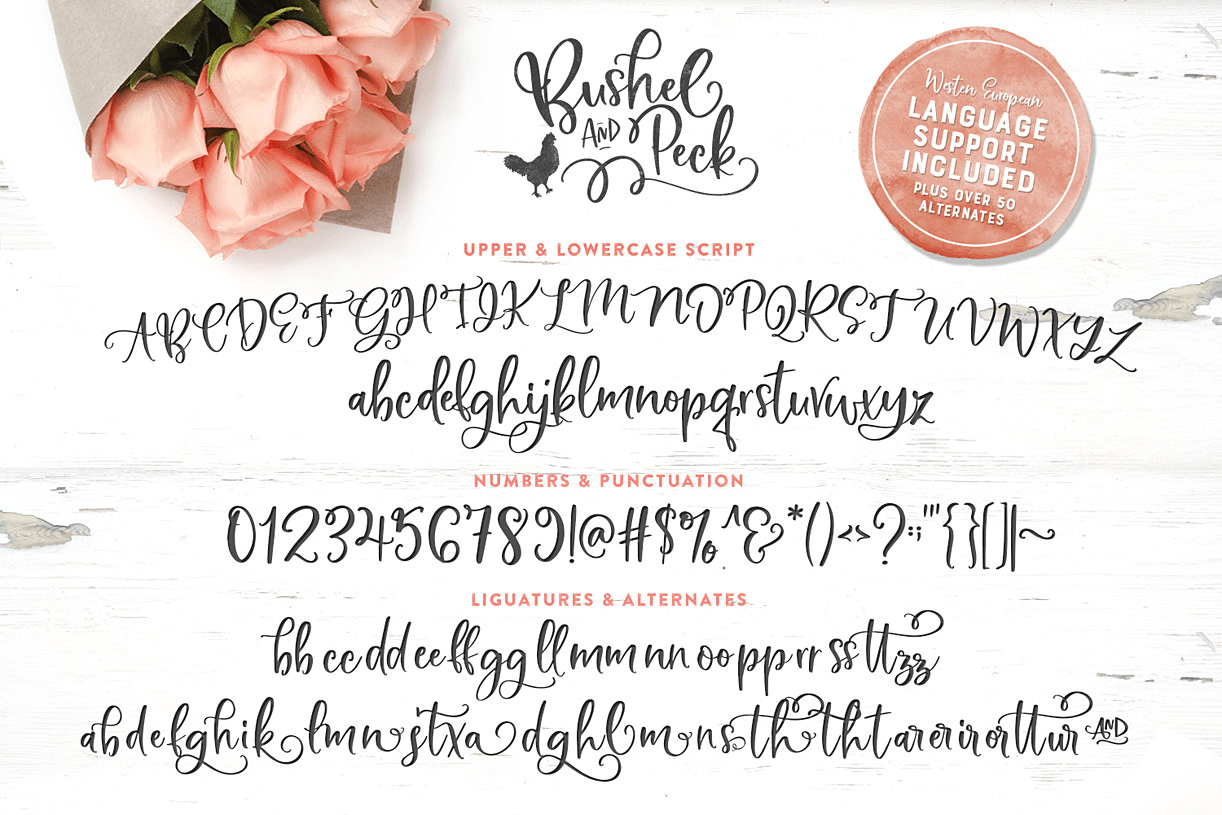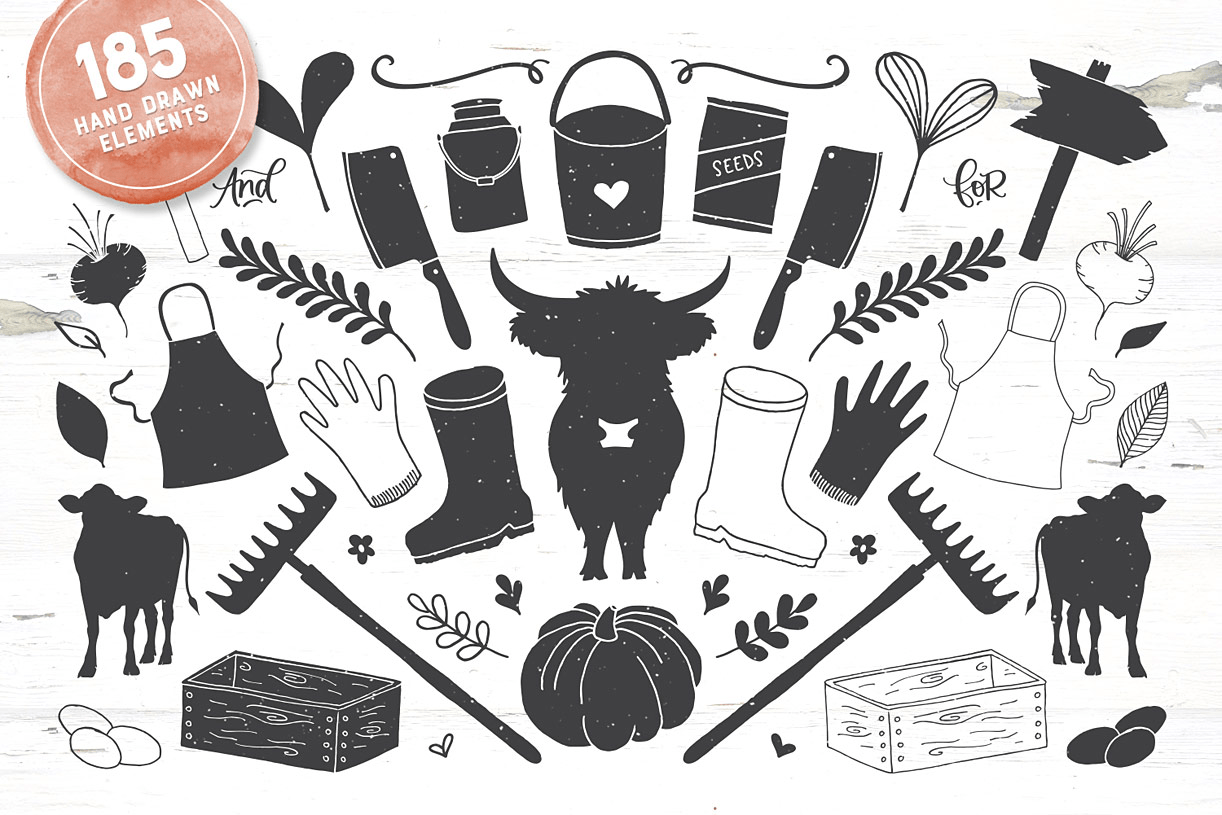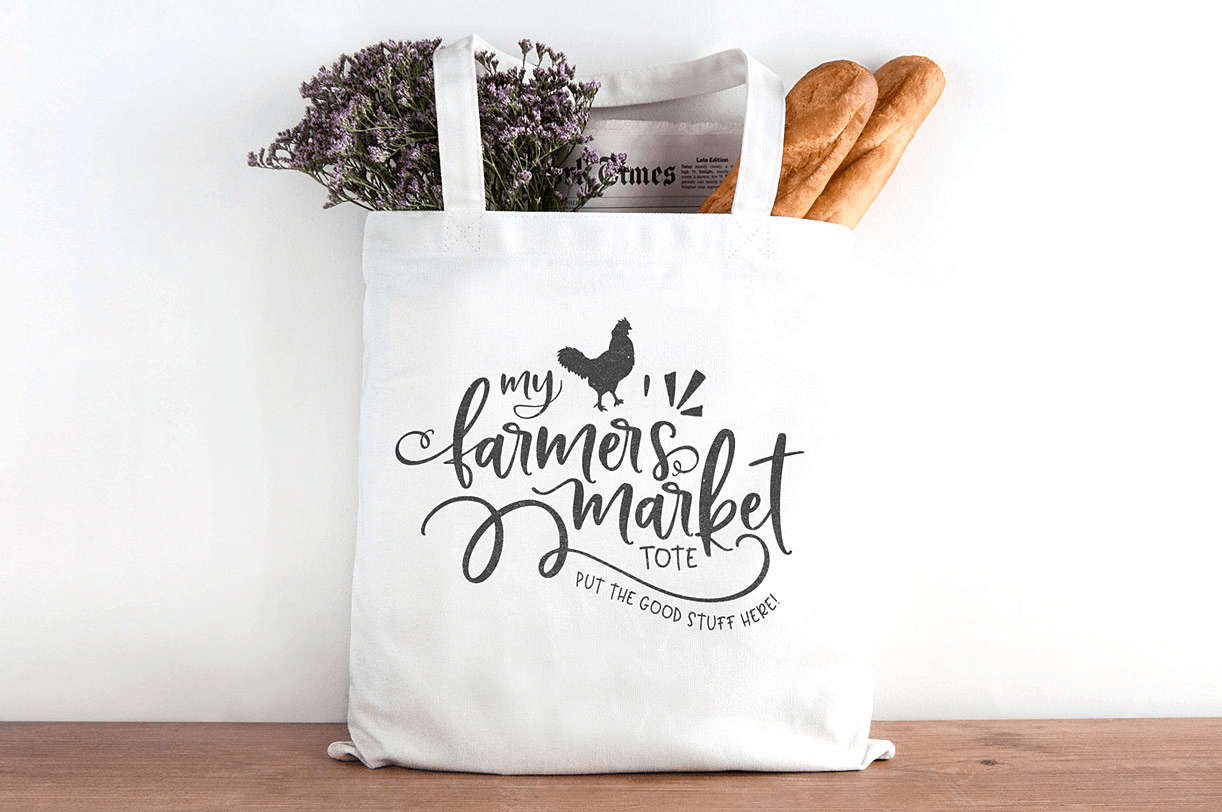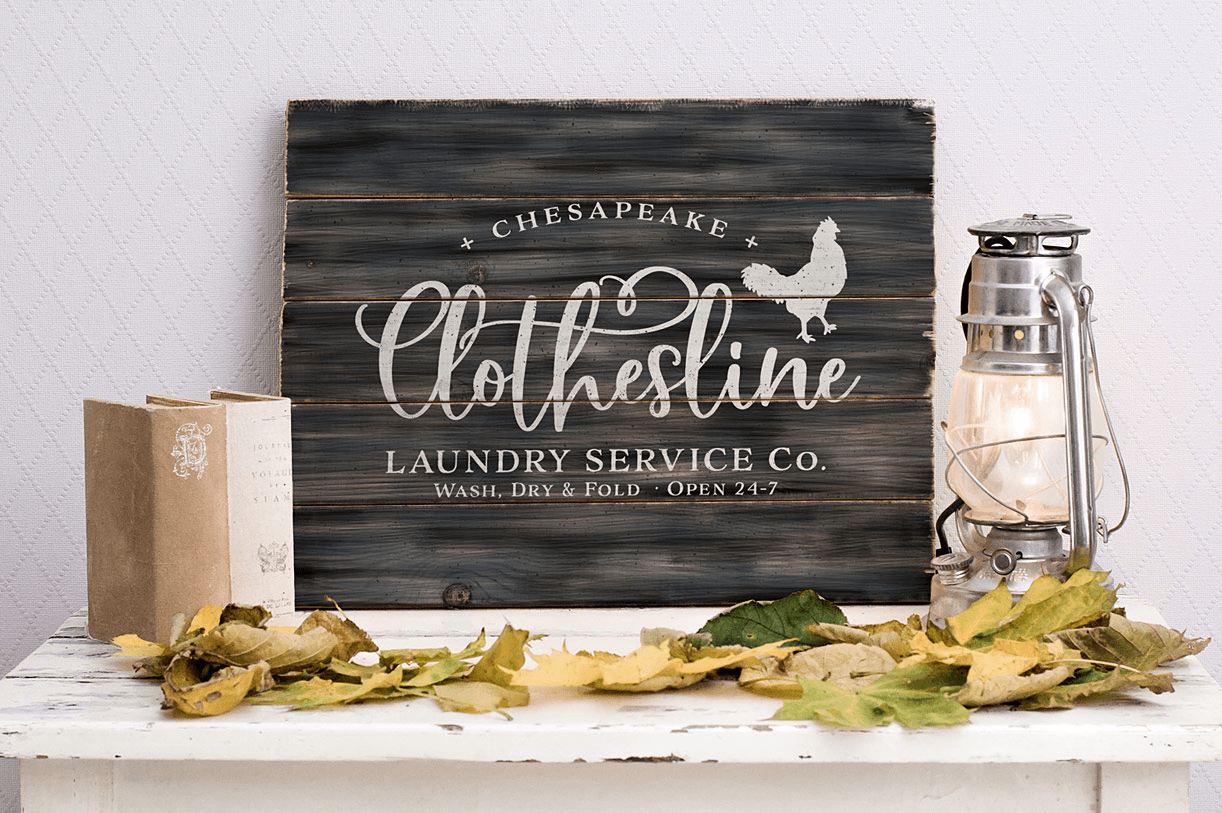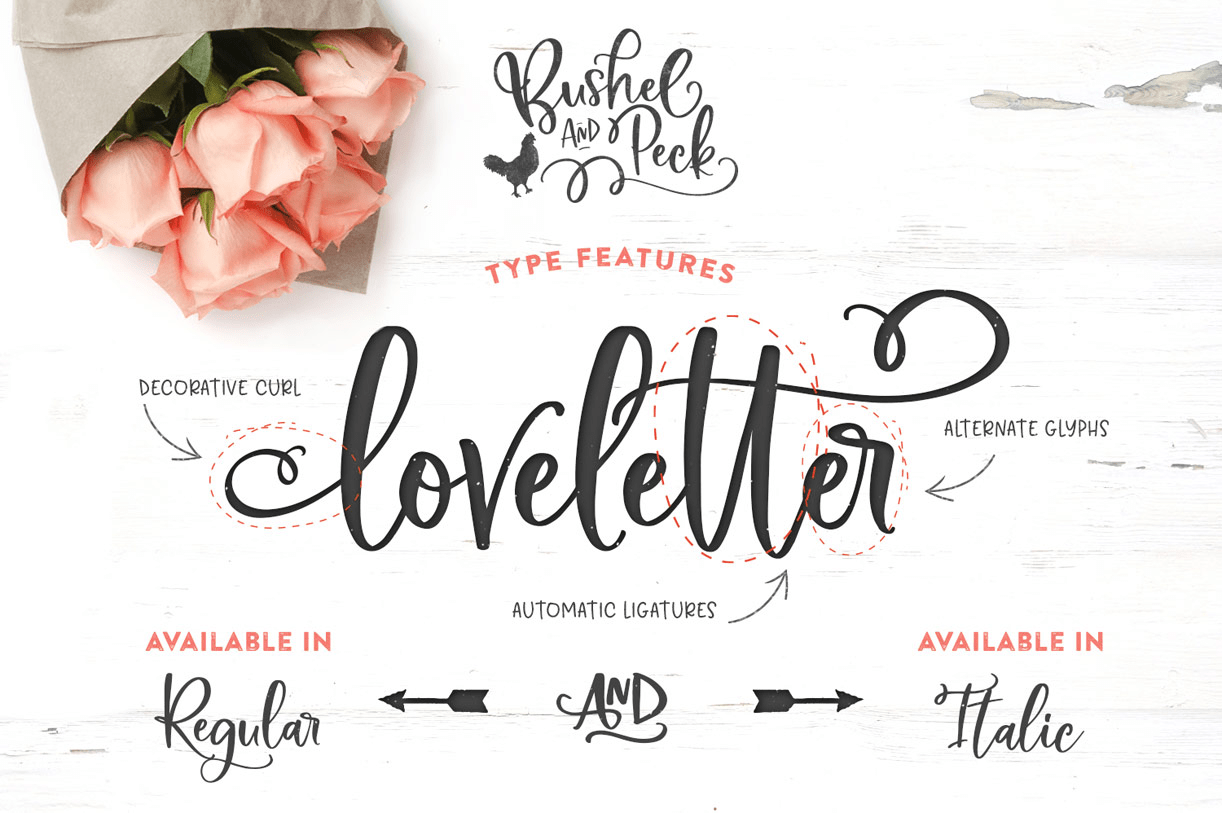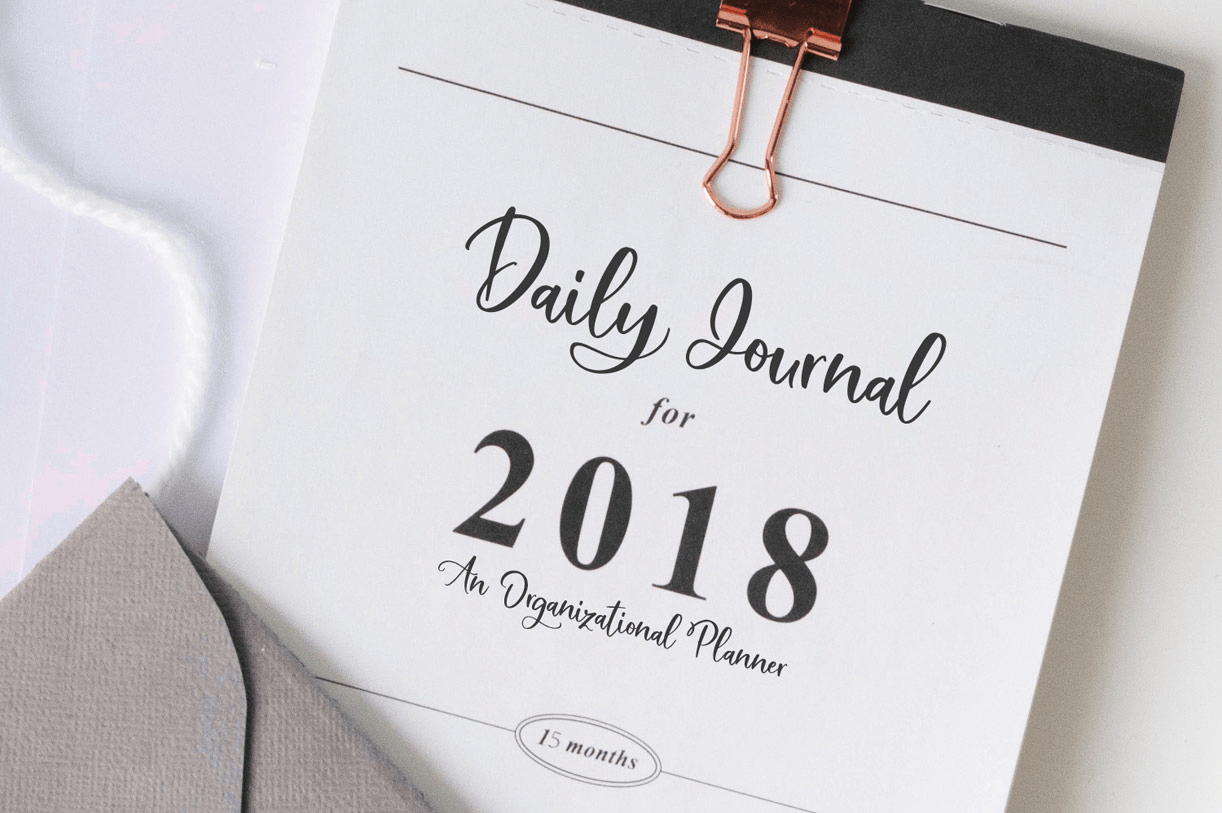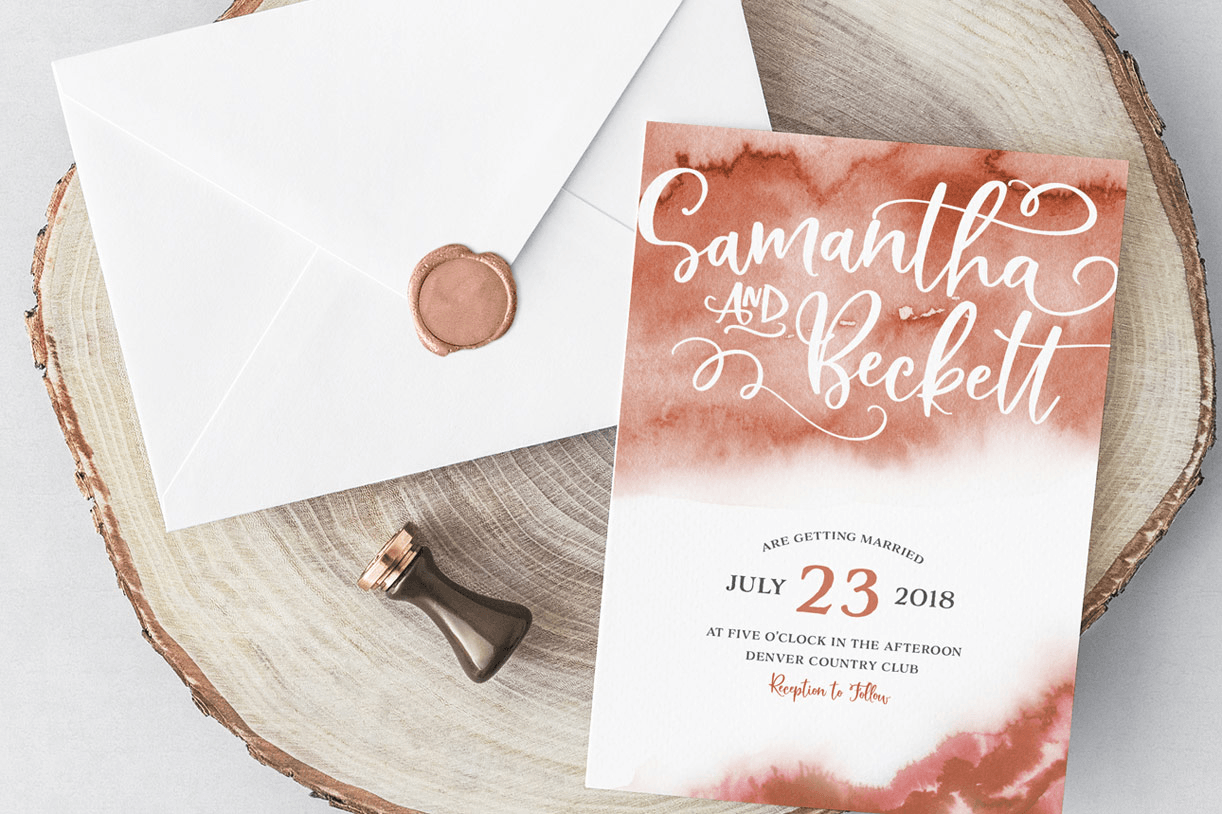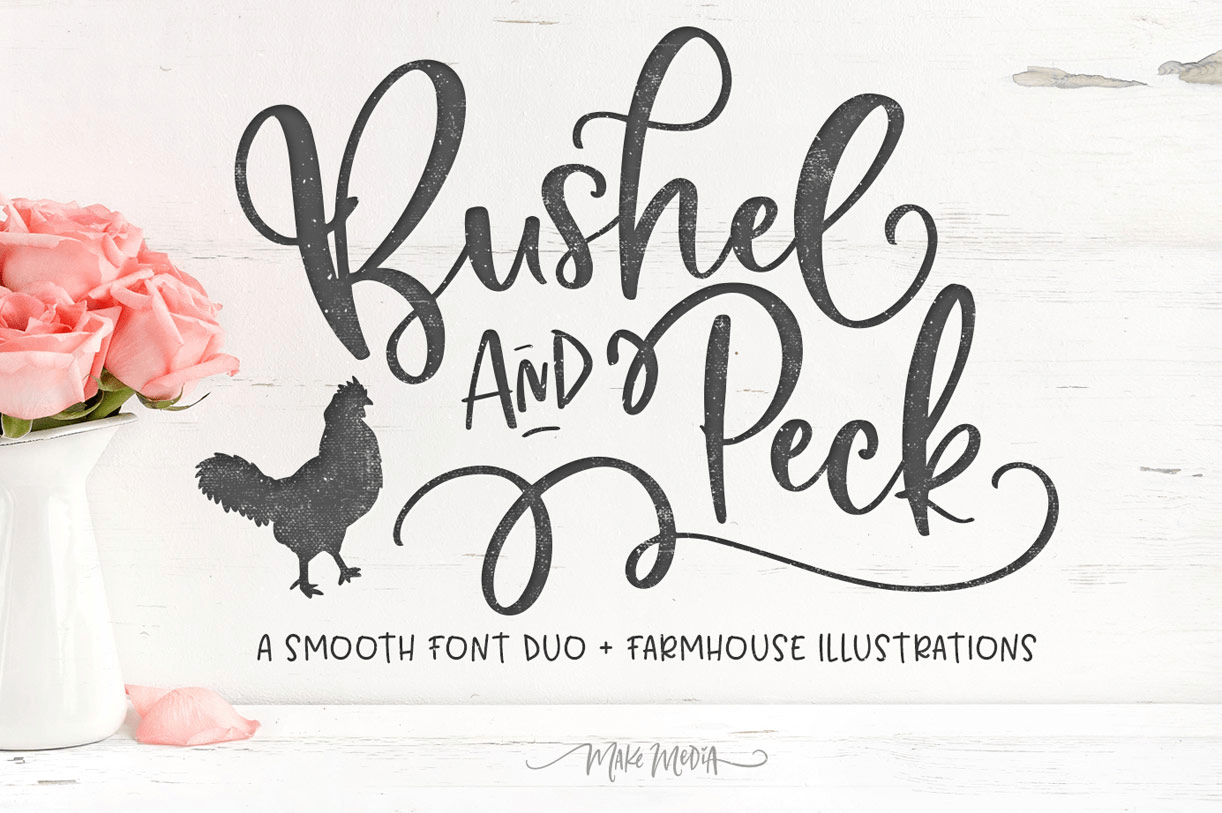
Bushel and Peck
Introducing Bushel and Peck – A flirty, bouncy, farmhouse script with Western European language support, over 50 alternate characters, a bonus sans serif, and 170 hand drawn elements. Use this font family to create gorgeous branding, signage and packaging,…